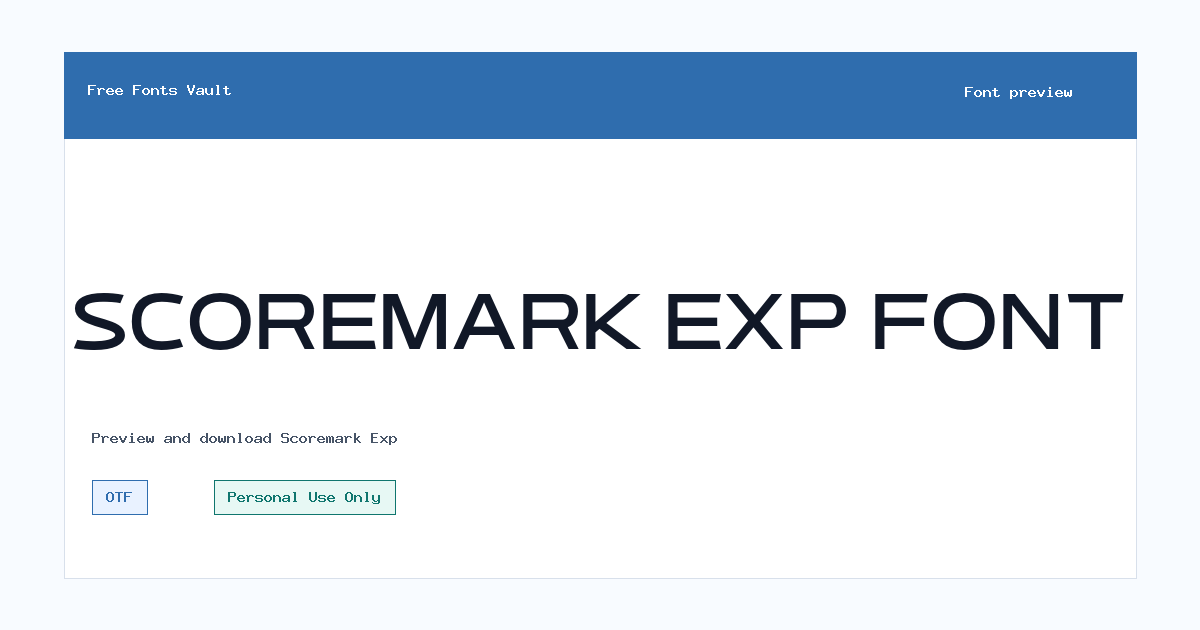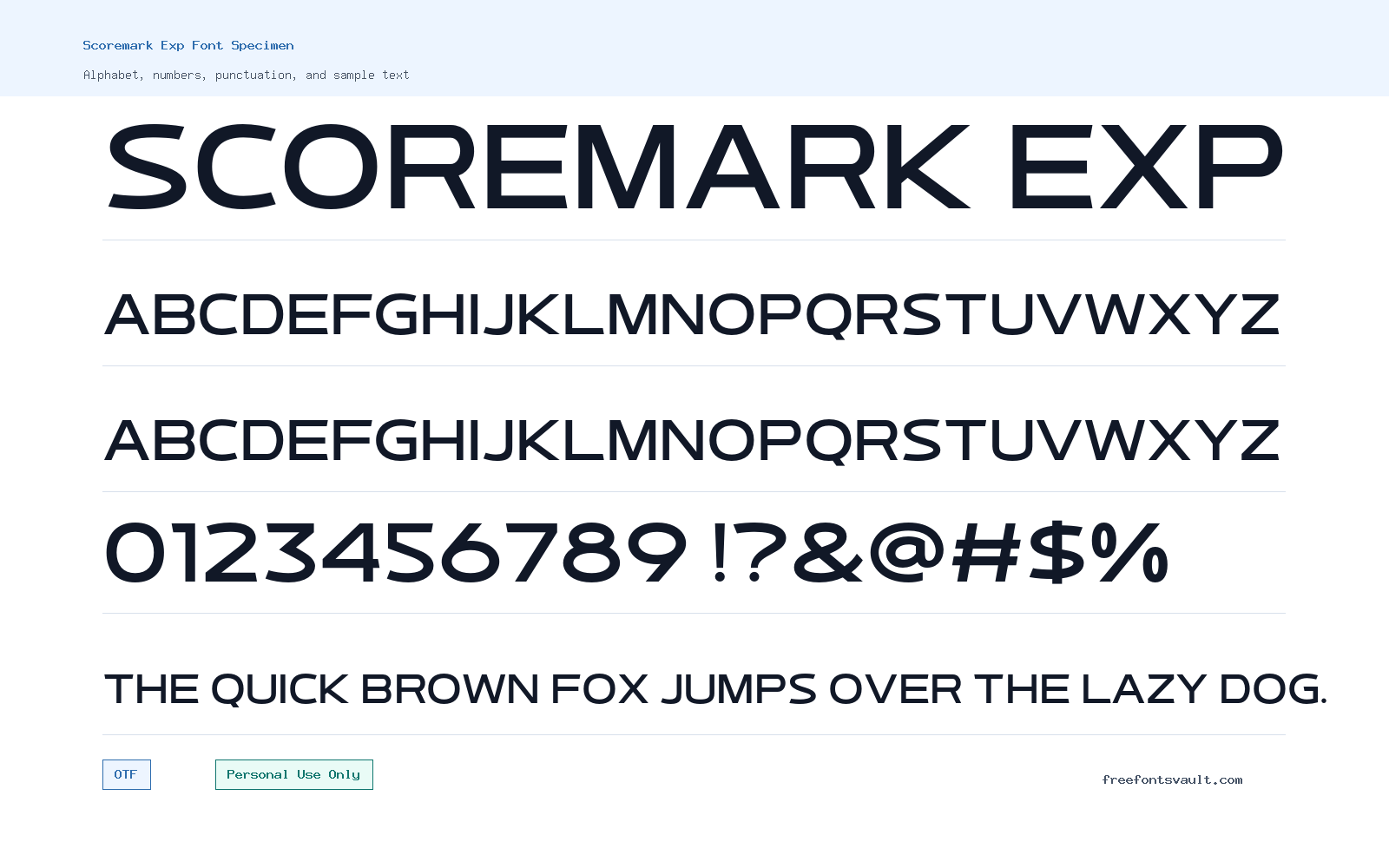
Scoremark Exp
- Designer Dida Ahluddin
- Foundry ahweproject
Scoremark Exp font.
Scoremark Exp is an expanded display font with a wide, attention-grabbing shape, made for short pieces of text where the lettering needs to feel bold and graphic.
About Scoremark Exp Font
Scoremark Exp works best when you treat it as a headline font rather than a long-reading text face. The expanded letterforms give words a broad footprint, so even a short title can fill a poster, cover, banner, or logo mockup with strong visual weight. Because the style is wide and display-focused, it is most useful for names, titles, labels, badges, sports-style graphics, gaming visuals, music artwork, and social media designs where a compact message needs to stand out quickly. In the preview, try the exact word or phrase you plan to use, because expanded fonts can change the balance of a layout depending on word length.
For logo work and branding drafts, Scoremark Exp can help you test a wide, assertive wordmark direction, especially when the design needs simple shapes and a strong horizontal presence. Keep the text short, increase spacing only if the letters feel crowded, and check the result at both large and small sizes. For posters and web mockups, use it for the main title, section header, hero text, or callout, then pair it with a cleaner sans serif for body copy. A neutral companion font will usually keep the layout easier to read while letting Scoremark Exp do the visual work in the headline. If you are setting longer phrases, break the copy into lines rather than forcing the font into a dense paragraph.
- Expanded display proportions that give short words a wide, strong presence
- Regular style with normal weight metadata for straightforward testing
- Good fit for large-size previews, headings, posters, and logo mockups
- Best used as an accent face instead of a paragraph or interface font
- Logo concepts and wordmark experiments
- Sports, gaming, or music-themed display layouts
- Website hero headings and landing page mockups
- Social media quote cards, banners, and thumbnails
- Packaging labels, stickers, badges, and short brand marks
Use Scoremark Exp at large sizes and keep the wording short. Test uppercase and lowercase combinations in the preview, check spacing around wide letters, and leave enough margin so the expanded shapes do not feel squeezed. For clean layouts, pair it with a simple sans serif for descriptions, buttons, captions, and body text. If you plan to use it in a logo, client presentation, commercial poster, product label, or monetized web project, confirm the license first and keep proof of permission with your project files.
What kind of font is Scoremark Exp?
Scoremark Exp is best treated as an expanded display font. It is made for large, short text such as titles, logos, posters, and bold headings rather than long paragraphs.
What fonts pair well with Scoremark Exp?
Pair it with a plain sans serif that does not compete with the wide display style. Use Scoremark Exp for the main word or title, then use the simpler font for body text, menus, captions, and supporting details.
Is Scoremark Exp good for website body text?
No. Its expanded display shape is better for hero headings, banners, and short callouts. Body text should use a more readable text font.